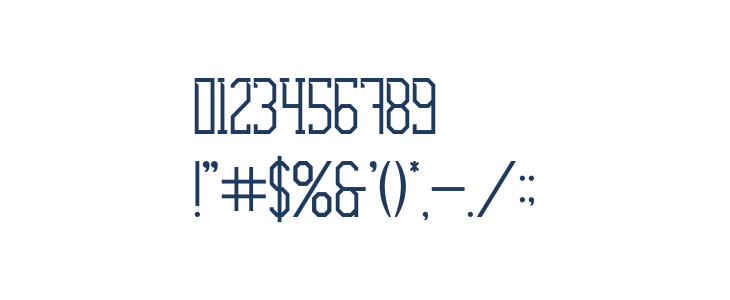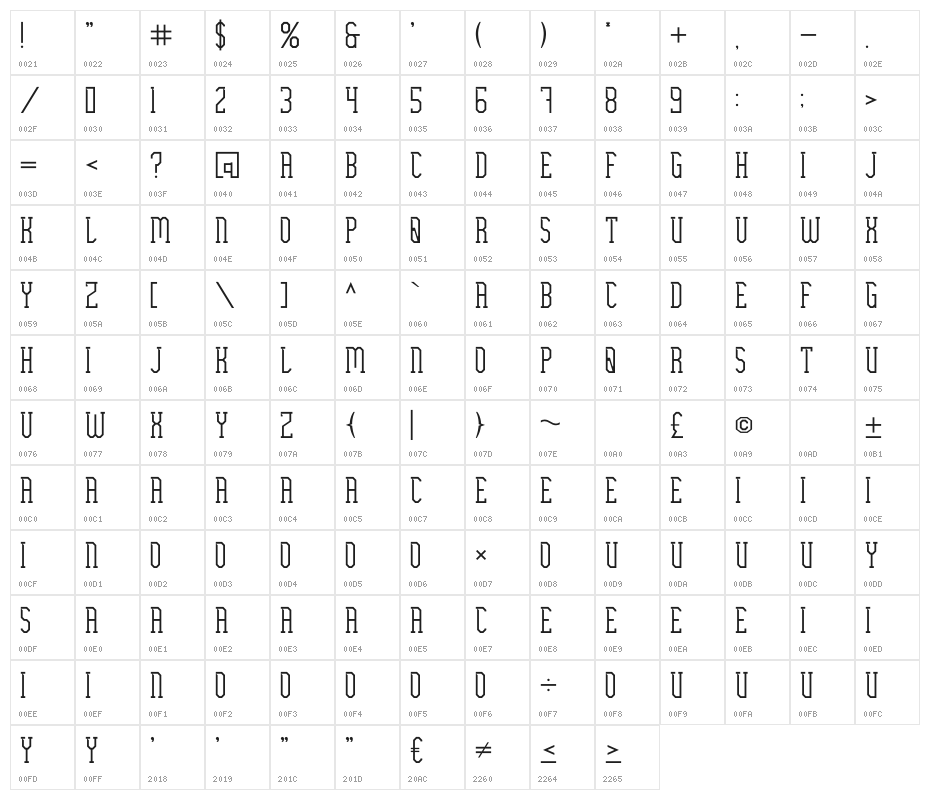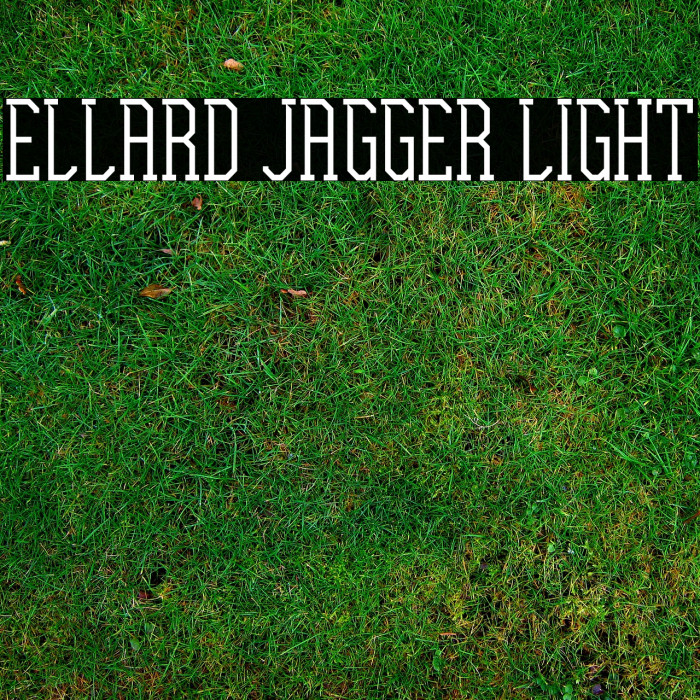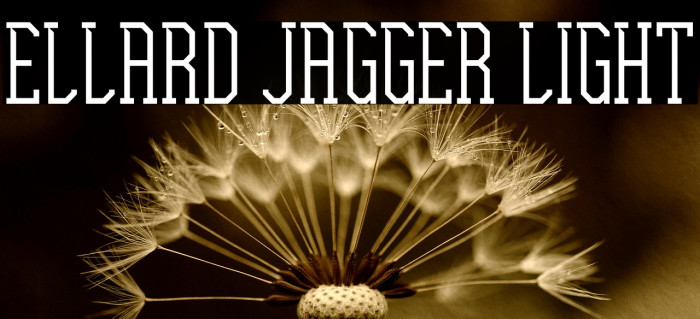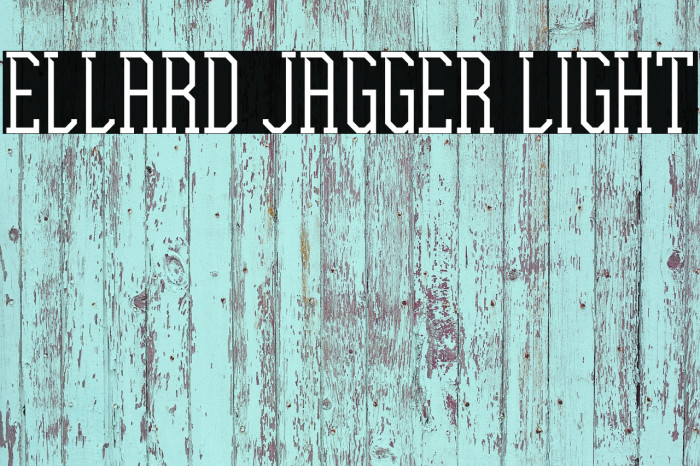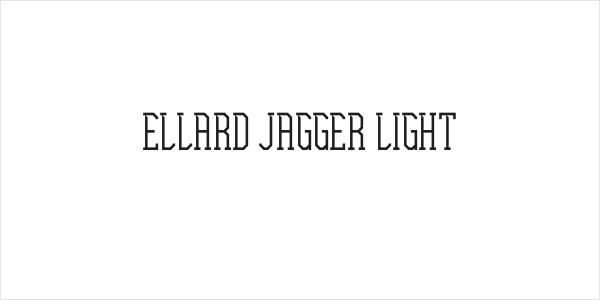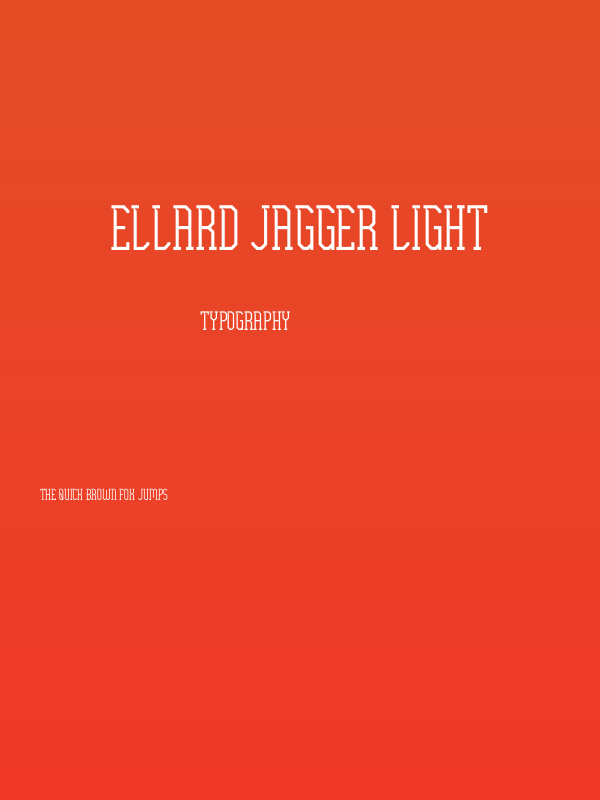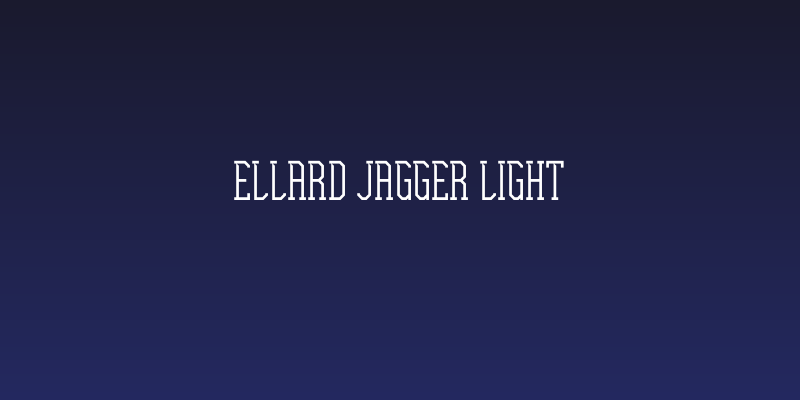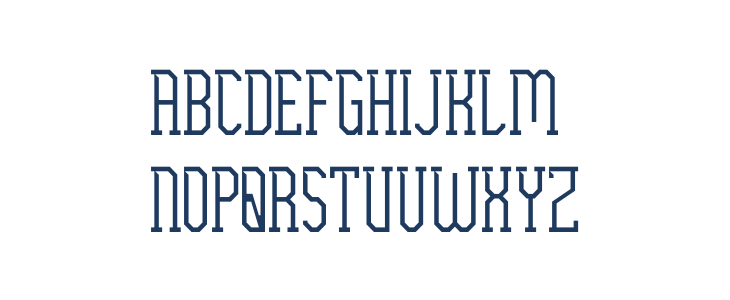
Ellard Jagger Light Font
Ellard Jagger Light Description
This font features a geometric and angular design, characterized by its tall and narrow letterforms. The uppercase and lowercase letters maintain a consistent height, creating a uniform appearance. The strokes are thin and precise, with sharp edges and minimal curves, giving it a modern and technical feel. The numbers and special characters are designed to match the angular style, ensuring a cohesive look across all glyphs. The font's clean and structured appearance makes it suitable for projects that require a contemporary and professional aesthetic.
| Use Case | Headlines, Logos, Digital interfaces |
| Proposed Projects | Ideal for technology branding, modern posters, architectural designs, and digital interfaces. |